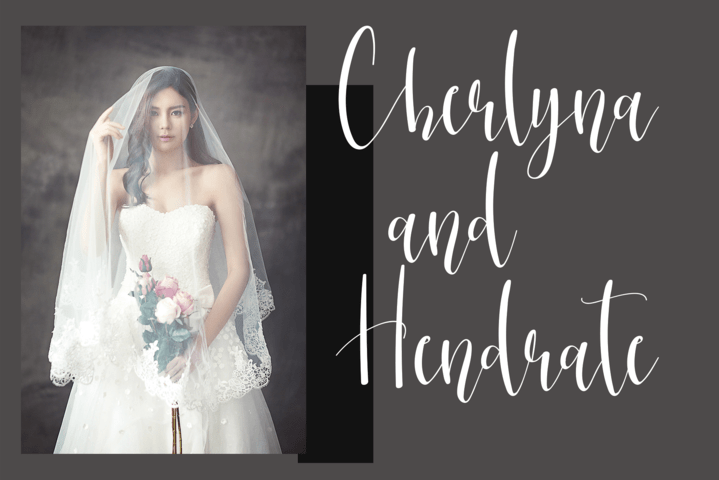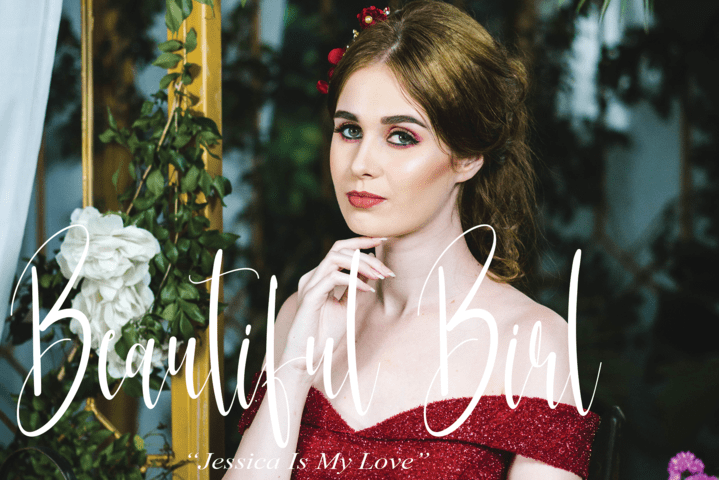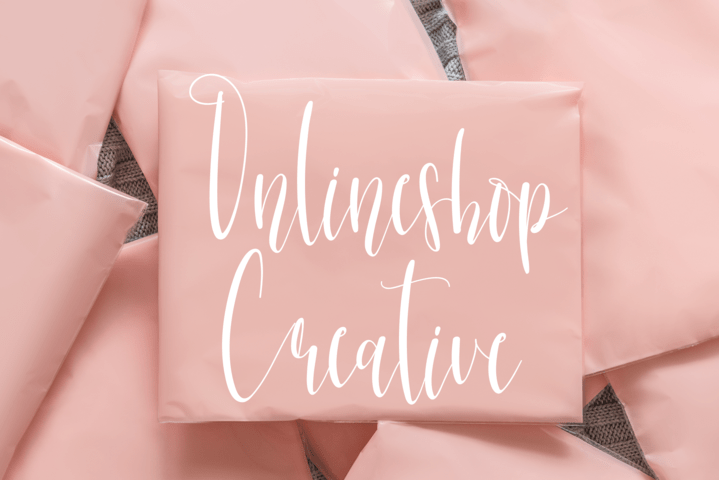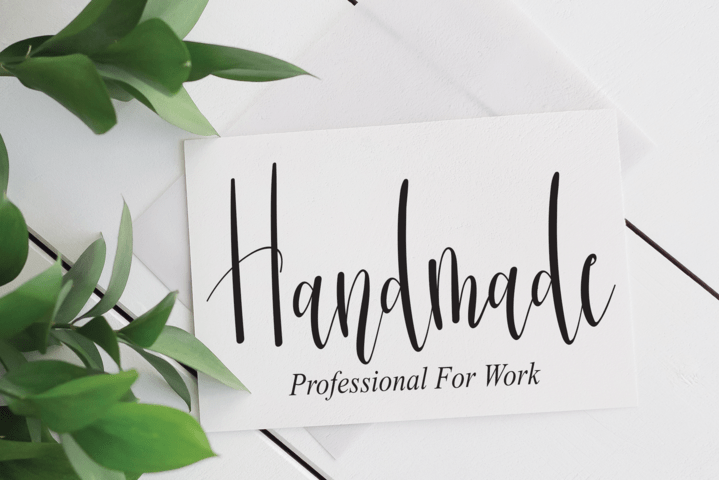
Bonekastar Font
Bonekastar Script Font
It’s a beautiful, well balanced and stylish script font. It is defined by smooth curves and is perfect for fashion branding or editorial designs. Add it confidently to your projects, and you will love the results.